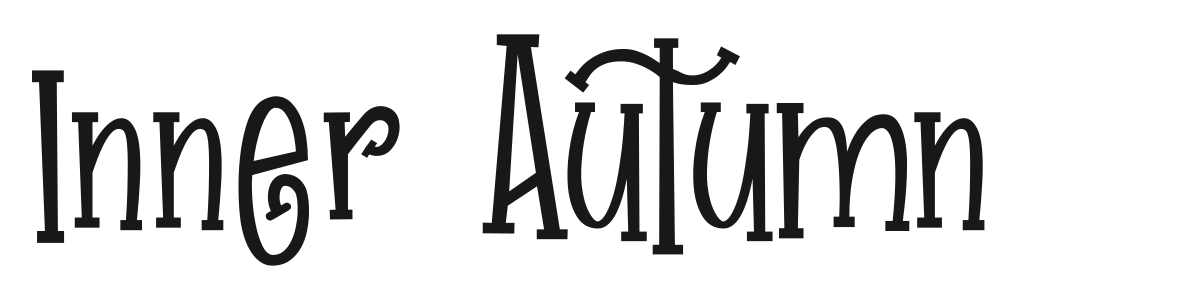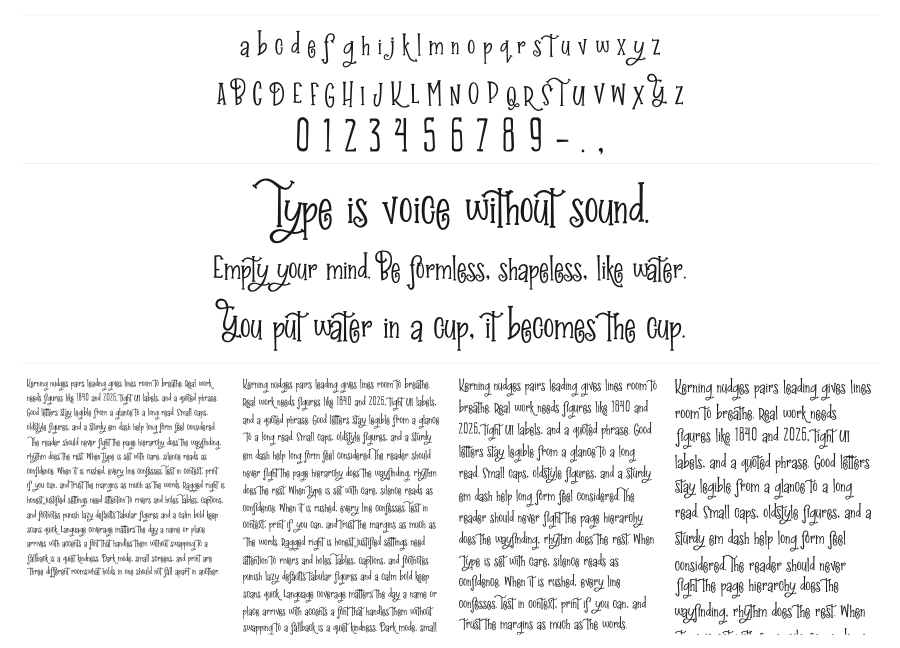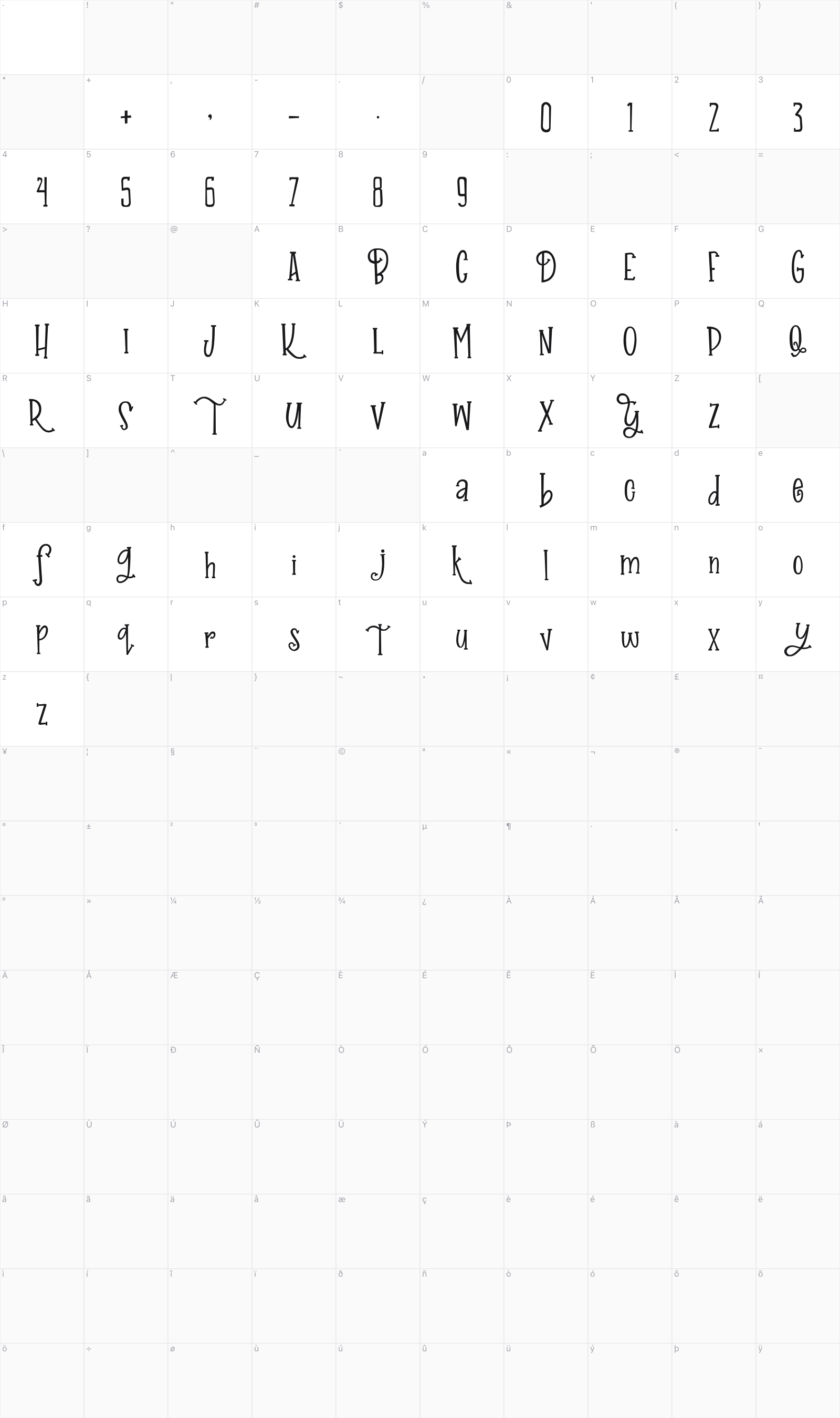
Inner Autumn
Inner Autumn is a condensed decorative serif with high stroke contrast and swirling curled terminals that give it a storybook, handcrafted energy. The tall narrow proportions mix upright stems with looping calligraphic details, creating a distinctive tension between structure and whimsy. It suits seasonal branding, artisan packaging, editorial headers, and anywhere a touch of quirky warmth is needed.